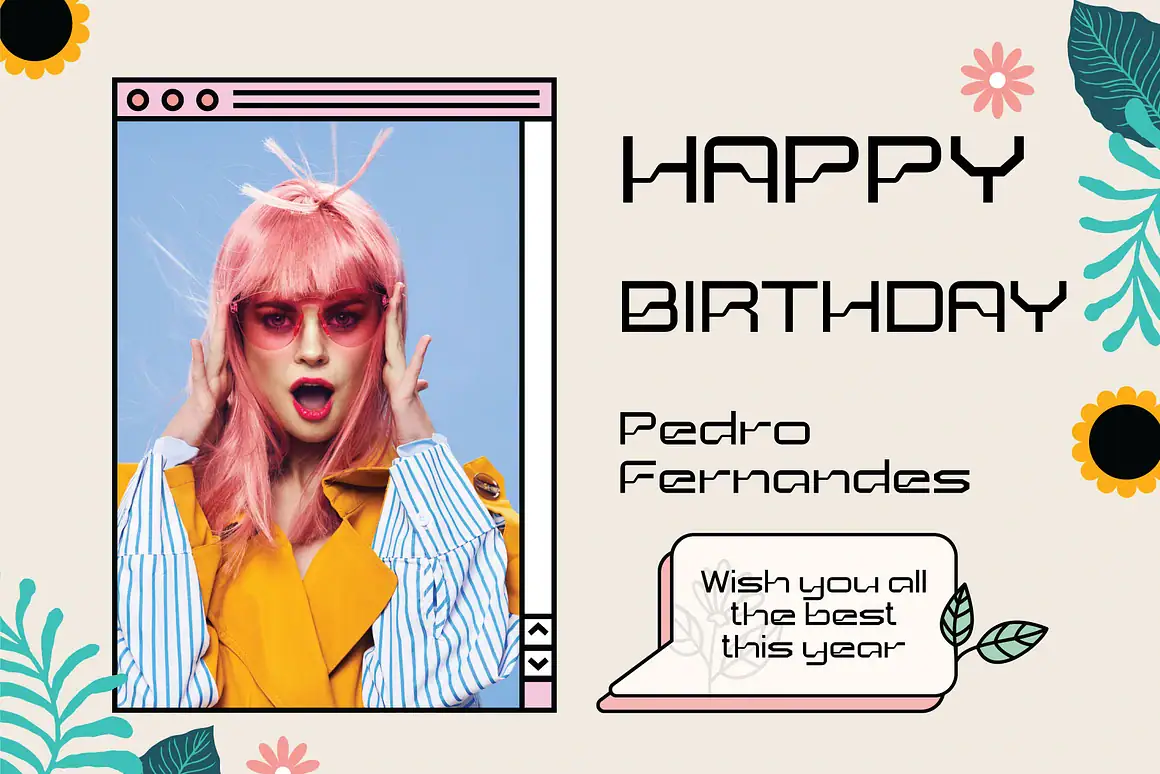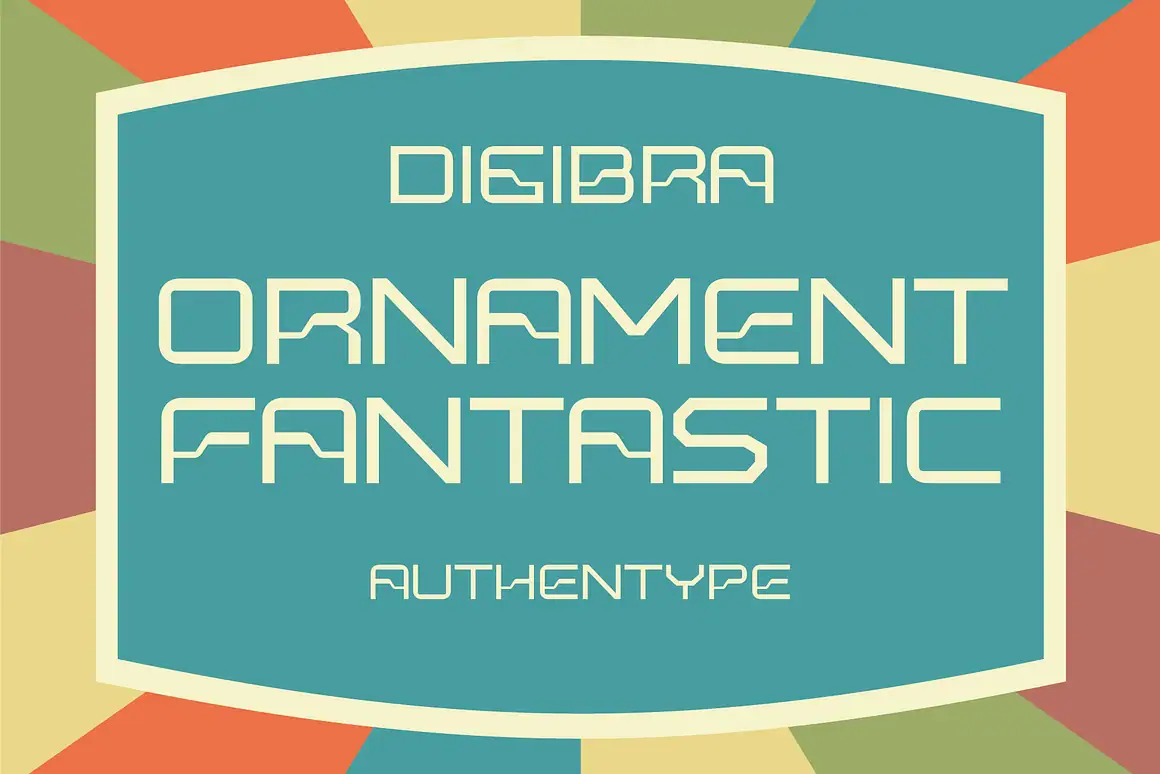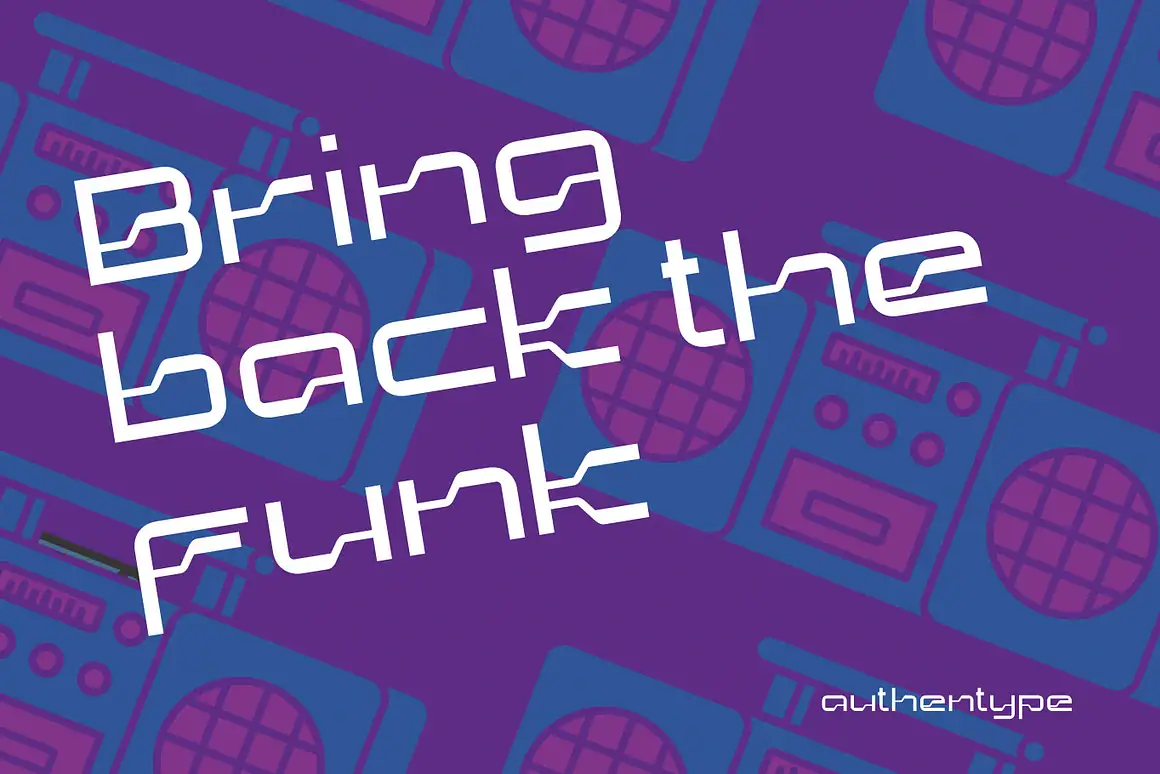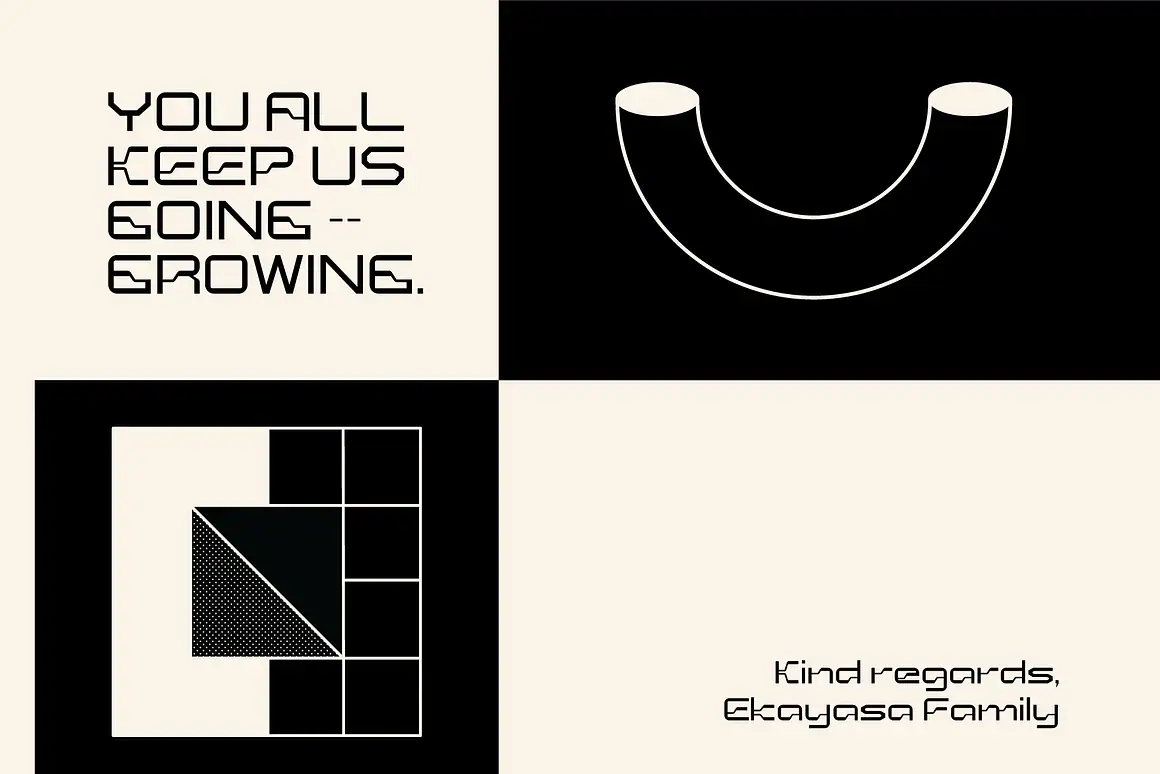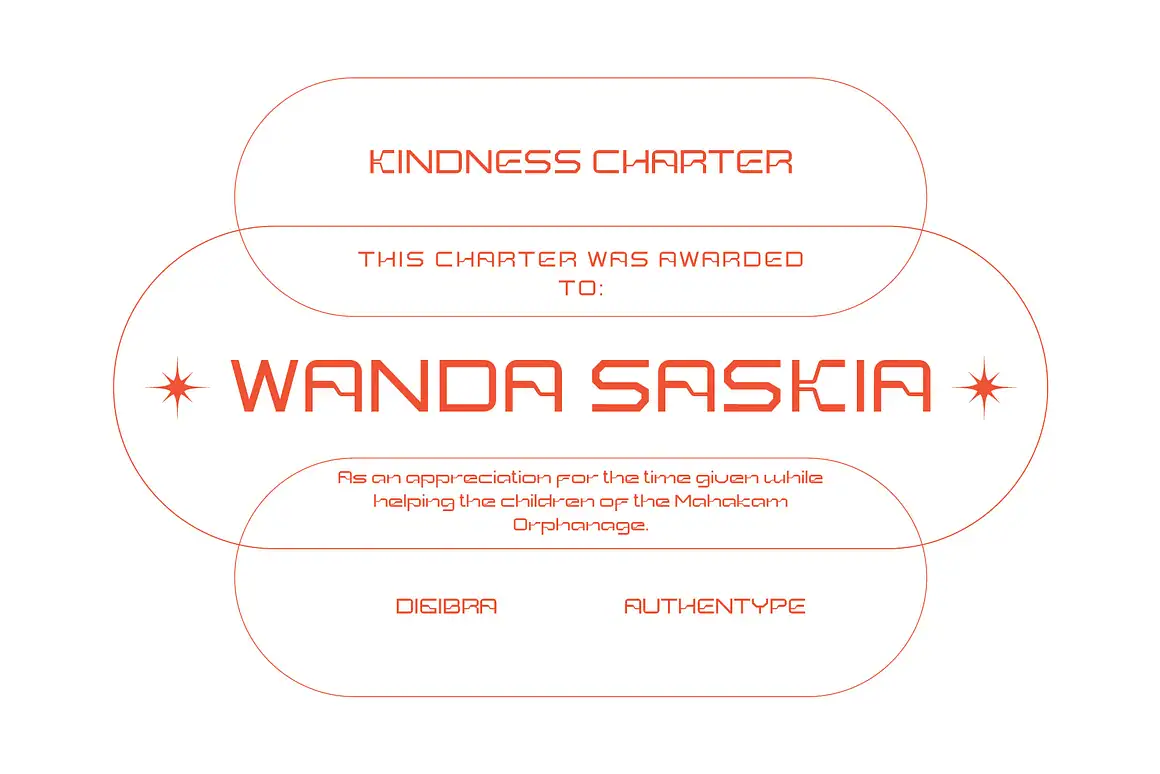
Digibra - Retro Digital Font
Digibra
Digibra is a retro digital font inspired by the Bagerich typeface “Baunk”. With its unique and whimsical letterforms, Digibra captures the nostalgic feel of old-school digital aesthetics while remaining highly appealing and relevant for modern design projects.
Perfect for posters, retro branding, digital-inspired artwork, and creative headlines, Digibra font brings a distinctive personality that stands out in both vintage and contemporary contexts.
✦ Features
- Standard uppercase & lowercase letters
- Numerals, punctuation, and ligatures
- Multilingual support
- Language support includes: ä ö ü Ä Ö Ü ß ¿ ¡